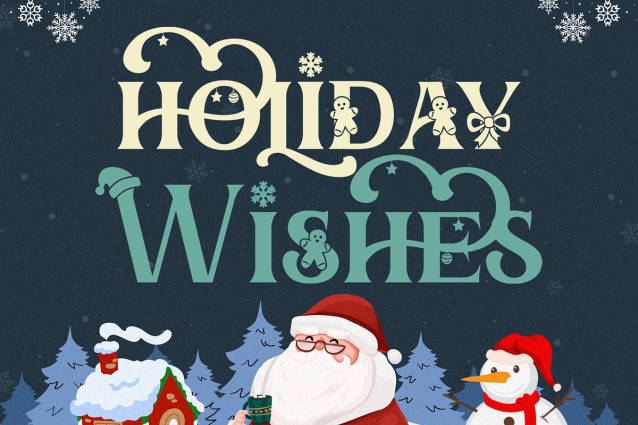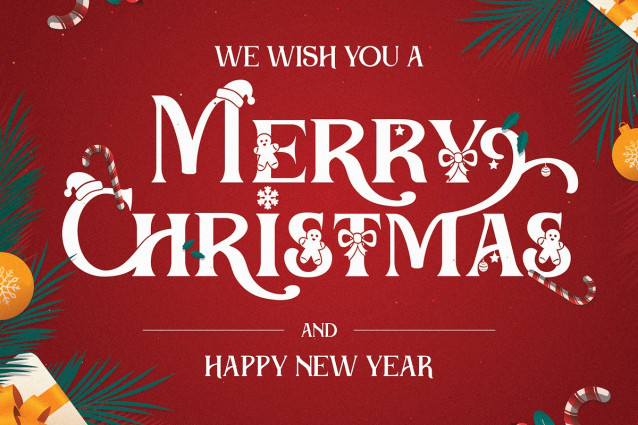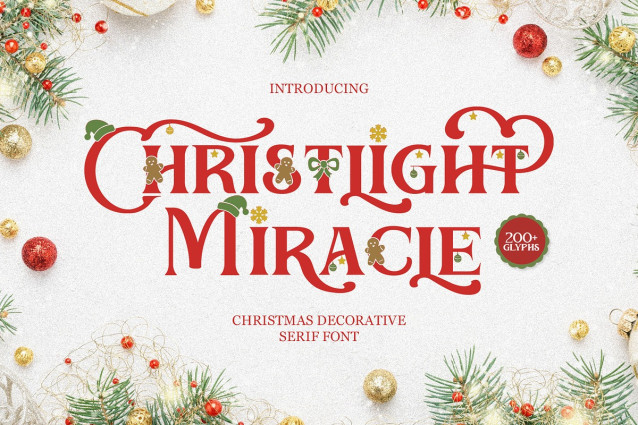
Christlight Font
Christlight Font – Christmas Display Font – Festive Christmas display font with playful, hand-drawn elements, perfect for holiday cards, invitations, posters, and seasonal branding.